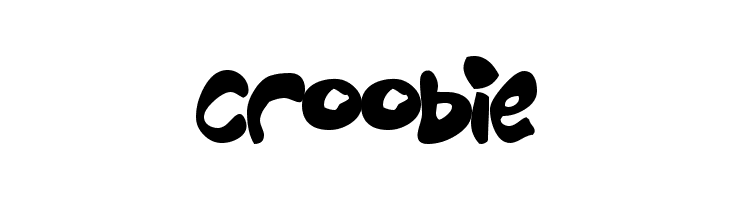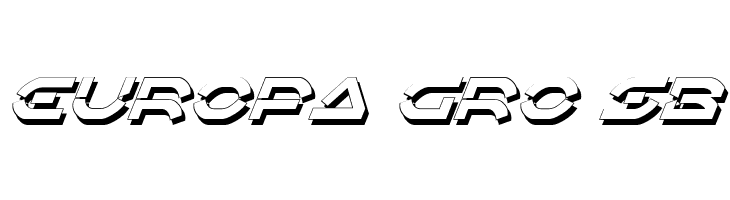
A futuristic, geometric font with bold, blocky letterforms and consistent stroke width.
A modern, italicized font with bold, angular lines and a futuristic style.
A playful, bold, and hand-drawn font with exaggerated curves.
A playful, bold font with rounded characters and heart motifs.
A bold, modern font with rounded edges and a slight slant.
A bold, geometric font with a 3D effect and strong visual impact.